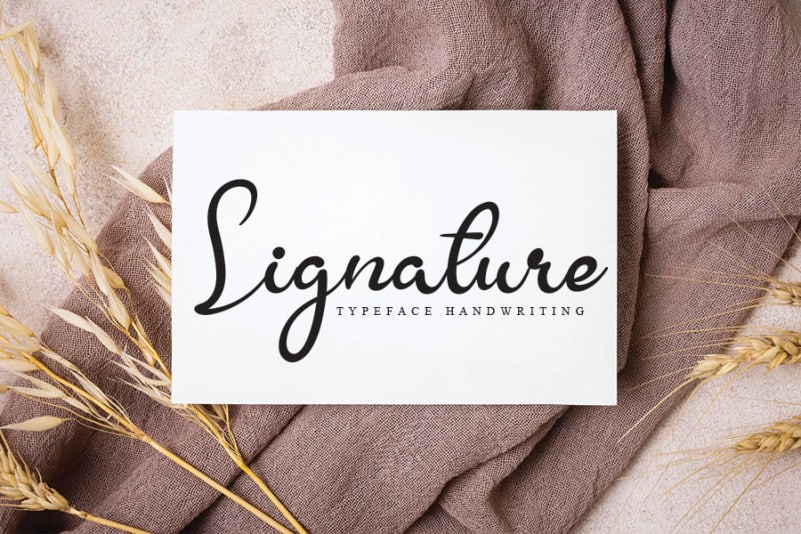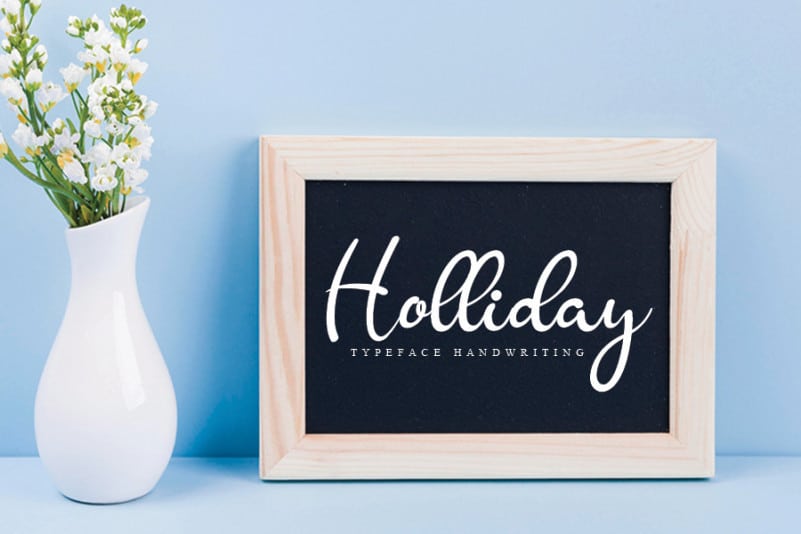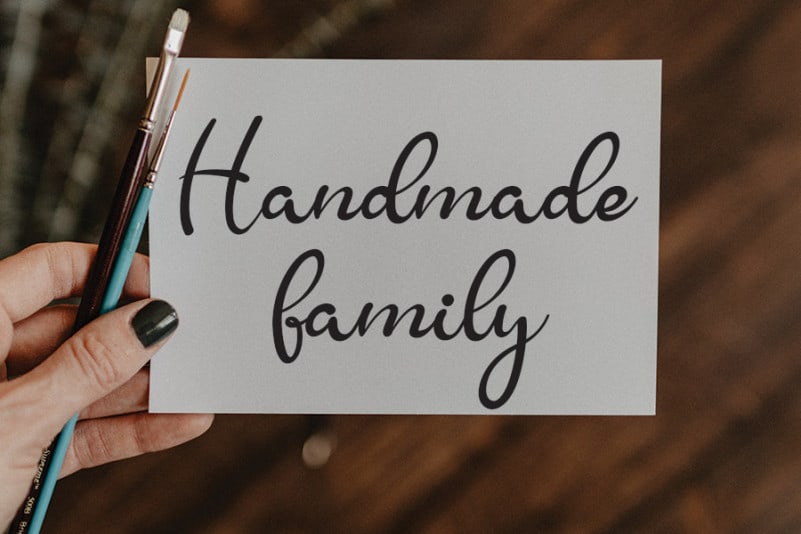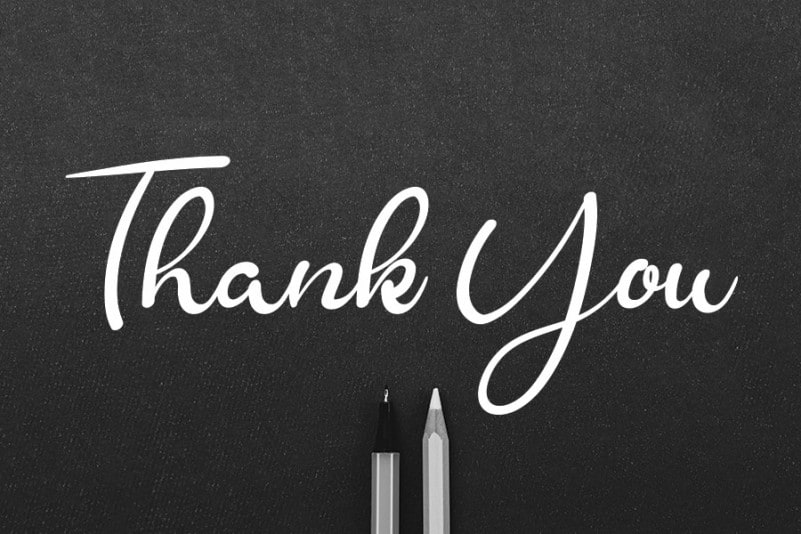
Chrysanthemum Handwritten Font
Chrysanthemum Font is a delicate, elegant and flowing handwritten font. It has beautiful and well balanced characters and as a result, it matches a wide pool of designs. Add it to your most creative ideas and notice how it makes them come alive!